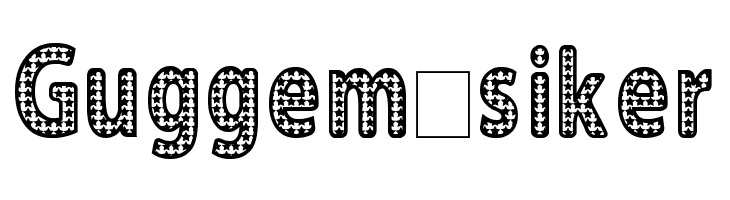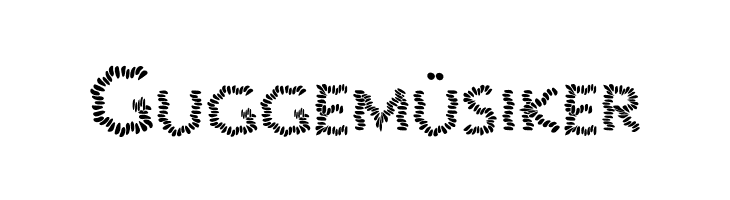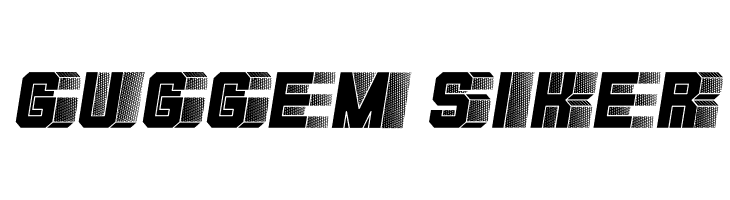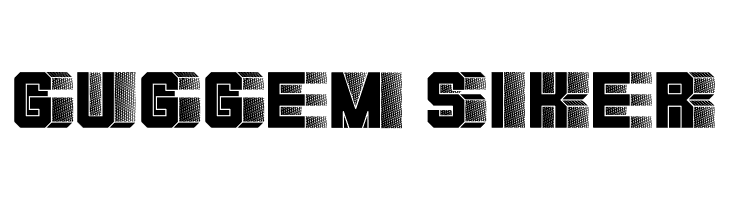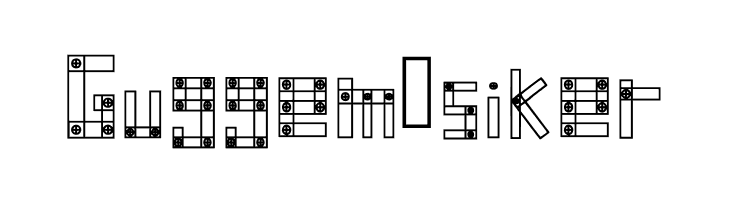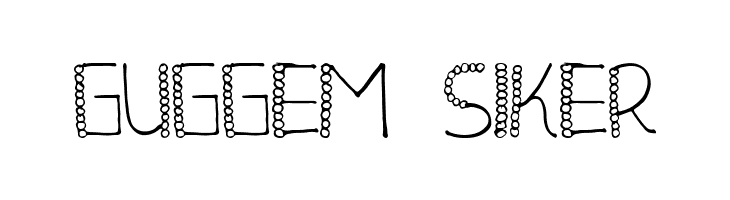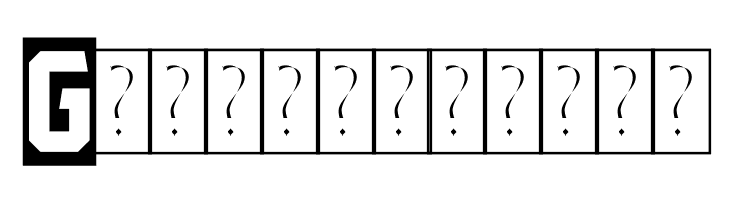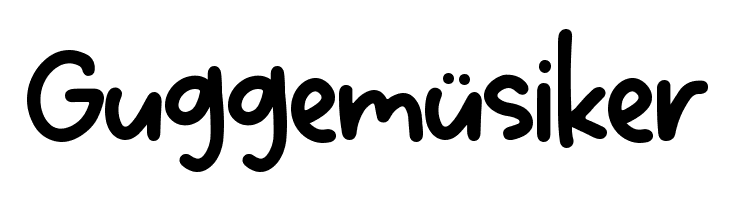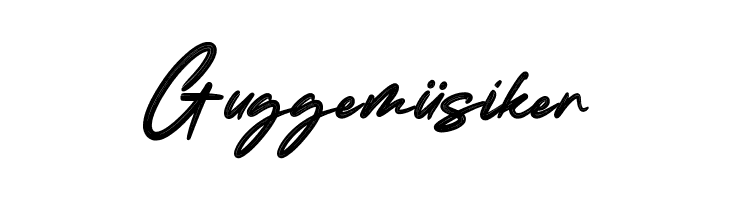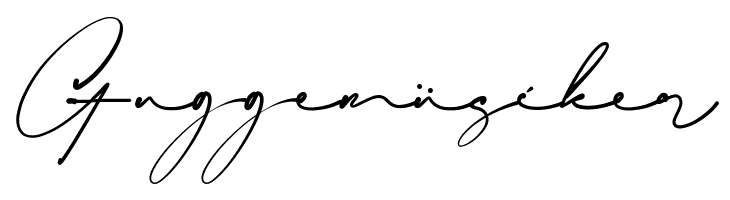
A bold, decorative font with characters formed by stone-like shapes.
A bold, geometric font with strong, angular lines and a futuristic style.
A bold, geometric font with strong, angular lines and a modern aesthetic.
A bold, angular font with a dynamic, geometric style.
A playful, handwritten font with a casual and energetic style.
A display font made from human head silhouettes.
A bold, playful font with rounded, bubbly characters.
A bold, playful font with a hand-drawn, rounded style.
A sophisticated, elegant handwritten script with fluid strokes.
An abstract, brushstroke-inspired font with a bold and chaotic style.
A decorative font with leaf motifs embedded in square blocks, offering a nature-inspired aesthetic.
A decorative font with intricate patterns and bold, artistic letterforms.
A bold, chunky font with a playful, retro vibe.
A bold, playful font with eye-like designs on each character.
A bold, slab serif font with a strong, impactful presence.
A playful, dotted font with a hand-drawn, whimsical style.
A decorative font with a bold, chain-like pattern for each character.
A playful, decorative font with bold, irregular strokes and whimsical details.
A bold, geometric font with angular forms and playful design elements.
A dynamic and fluid script font with elegant, flowing letterforms.
A bold, italicized font with a blocky, three-dimensional style and striped patterns.
A bold, three-dimensional font with a blocky, industrial design.
A bold, decorative font styled with barbed wire patterns.
A playful, bold handwritten font with rounded edges and a casual style.
A playful, block-inspired font with mechanical bolt details.